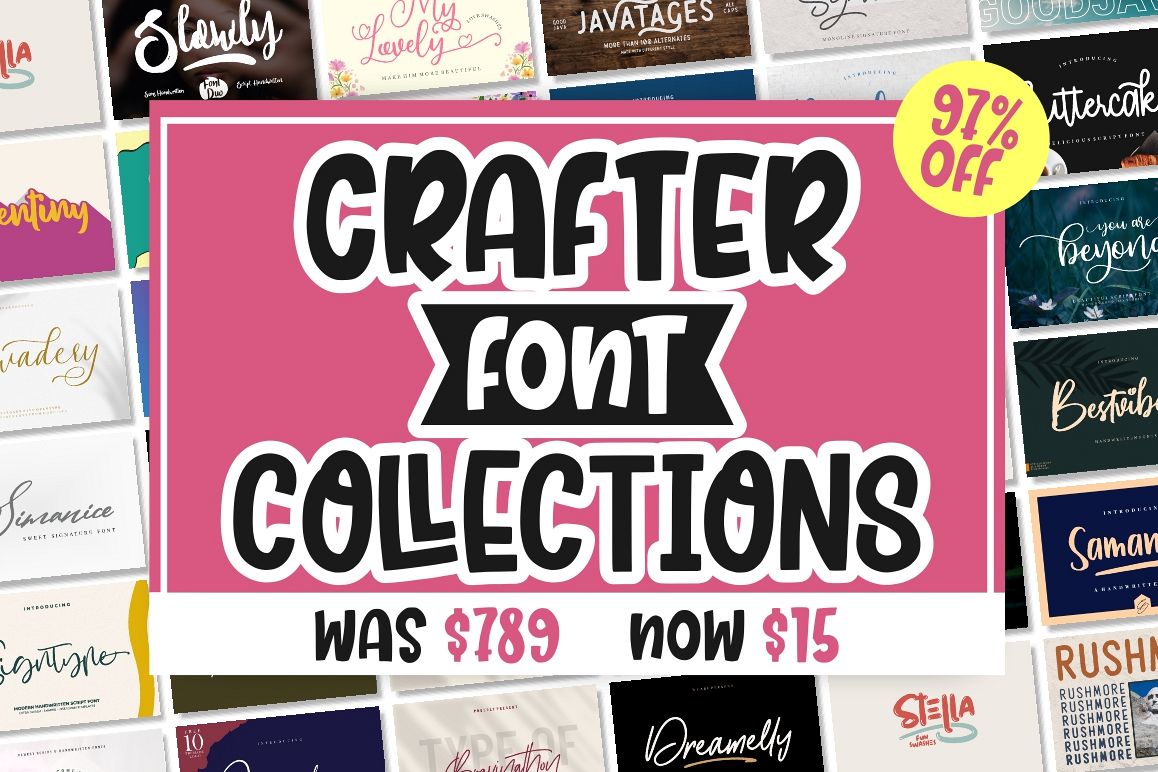
BEST CRAFTER FONT COLLECTIONS
CRAFTER FONT COLLECTIONS
This bundle made from all modern script font from Good Java Studio styles such as, signature, script, fun, vintage, retro, brush, monoline, display, feminine, handwriting, kids and many more. Some of fonts have alternates, ligatures, swashes and even illustration bonus pack.
BEST CRAFTER FONT COLLECTIONS
By Good Java Studio